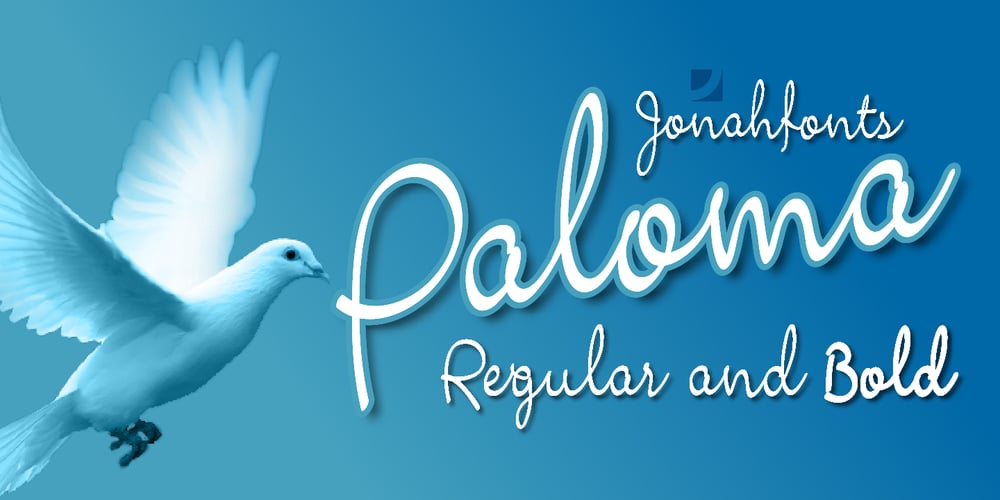
Paloma Font Family was designed by published by Jonahfonts. Paloma contains 2 styles and family package options. This is a hand-written script font. Specifically designed for books, invitations, magazines and advertisements.